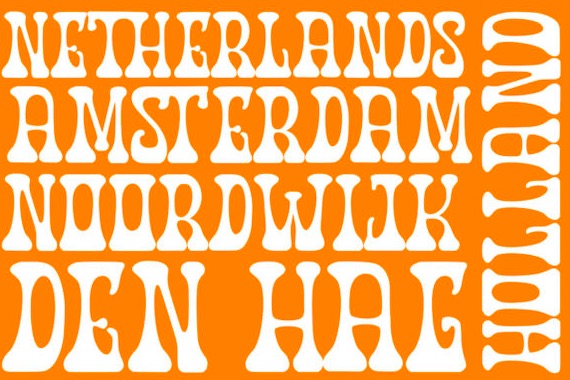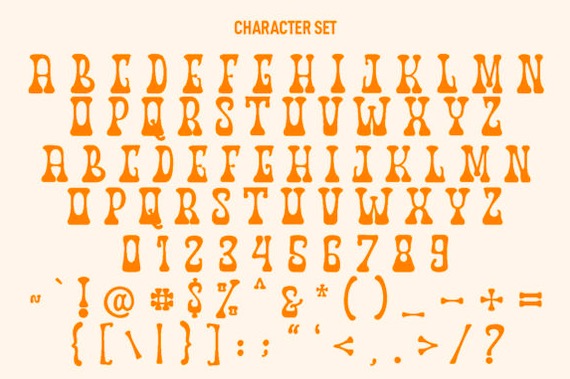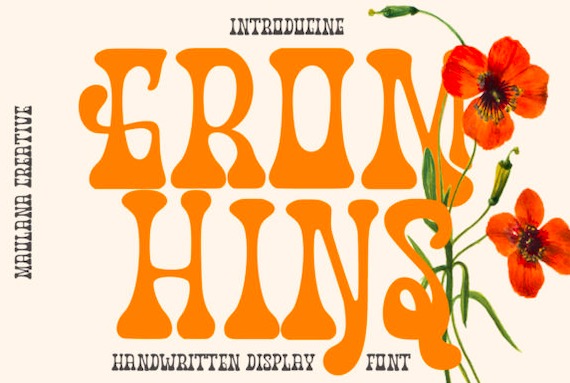
Gromhins is a modern and cheerful display font that was designed and shared by Maulana Creative. It is perfect for product packaging, branding project, magazine covers, social media, weddings, or just used to express words above the background.
Gromhins Display Font